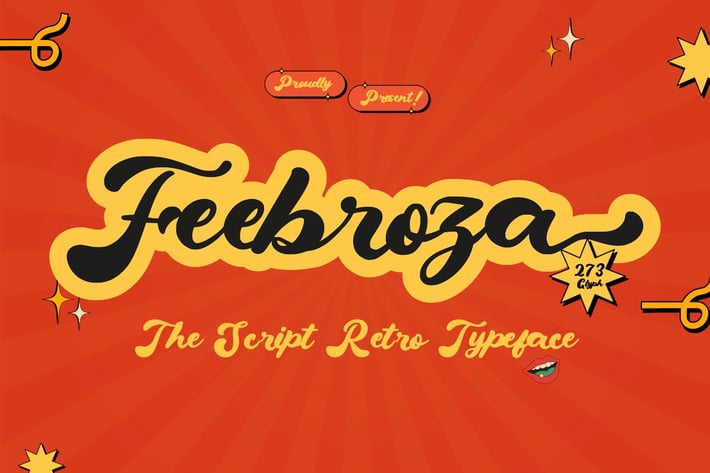
Feebroza - Script Retro Font
Introducing Feebroza - Script Retro Font
This Font is a delicate, elegant and flowing handwritten font. It has beautiful and well as a unique blend of ligatures a letter, so that the authors compose it with a and little swirly embedding, so that a modern font is formed and ready to make a statement by adding elegant and unique flair to your next design project. Add it to your most creative ideas and notice how it makes them come alive!
• Alternate & Ligature